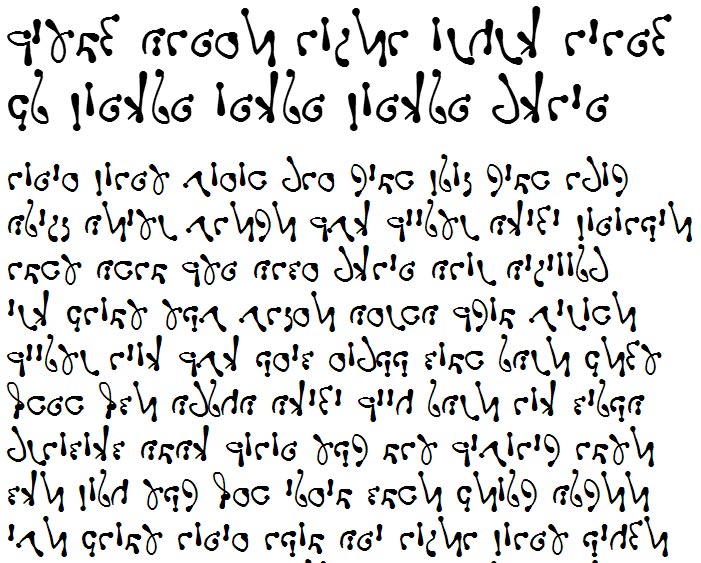
✓ After creating "Dybbuk", I found a small interesting bug in Fontographer, which makes the beginnings of strokes wider than the rest of it, which created a weird ball at the beginning of every line. This font is an elaboration of this idea. "Kurkevan" is navel is Hebrew.
X_Kurkevan Hebrew Font